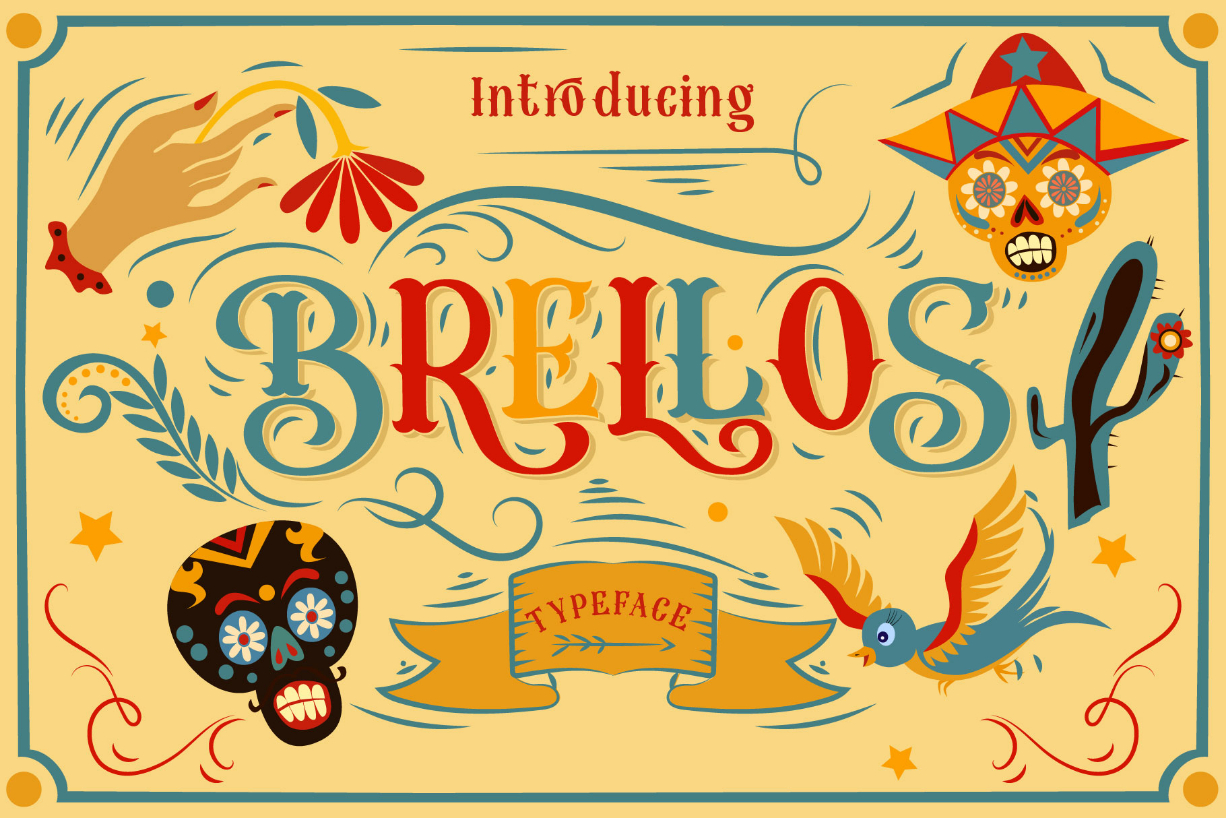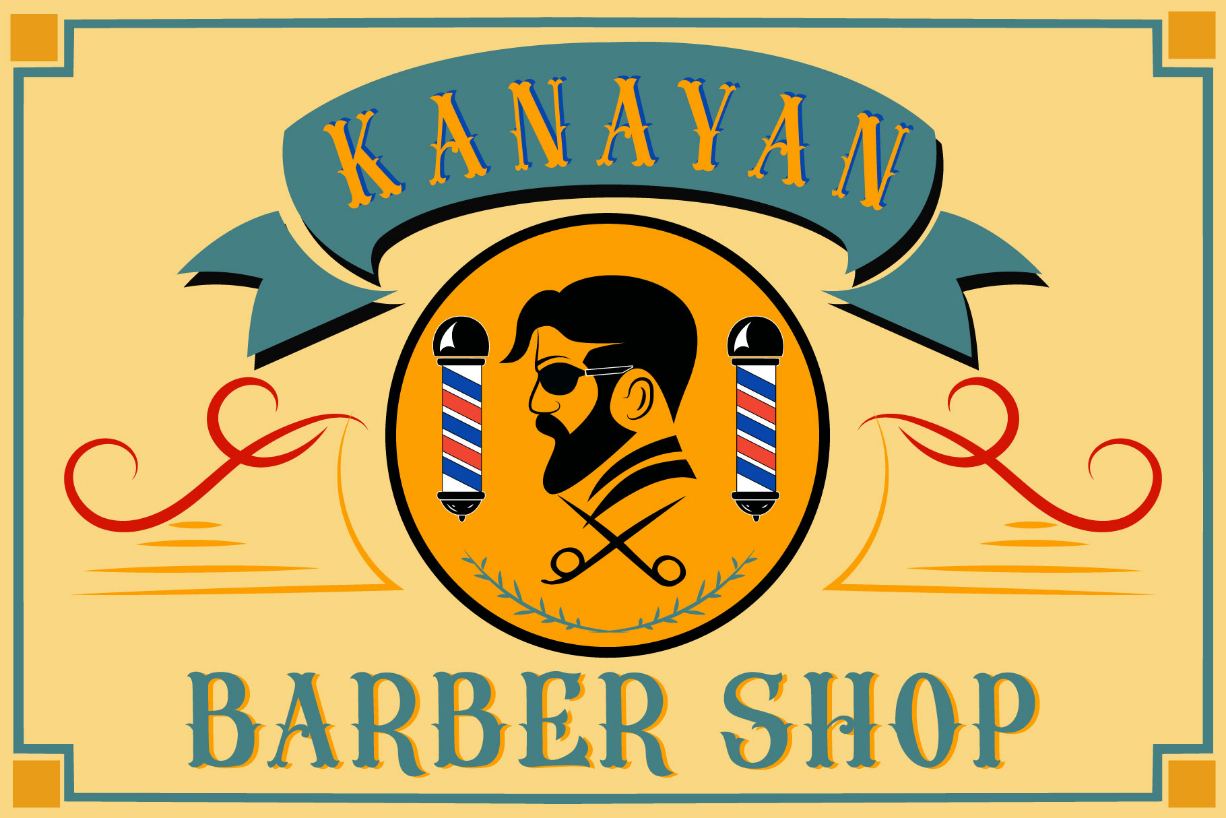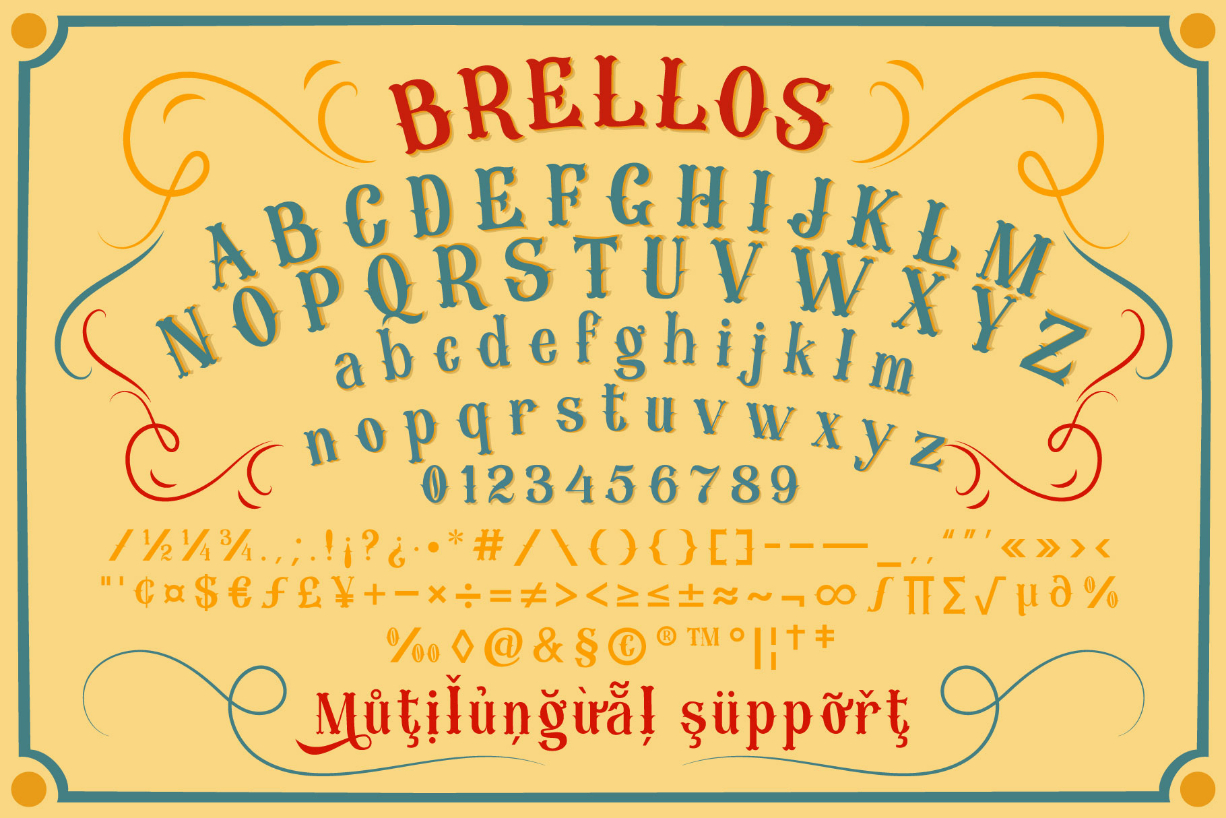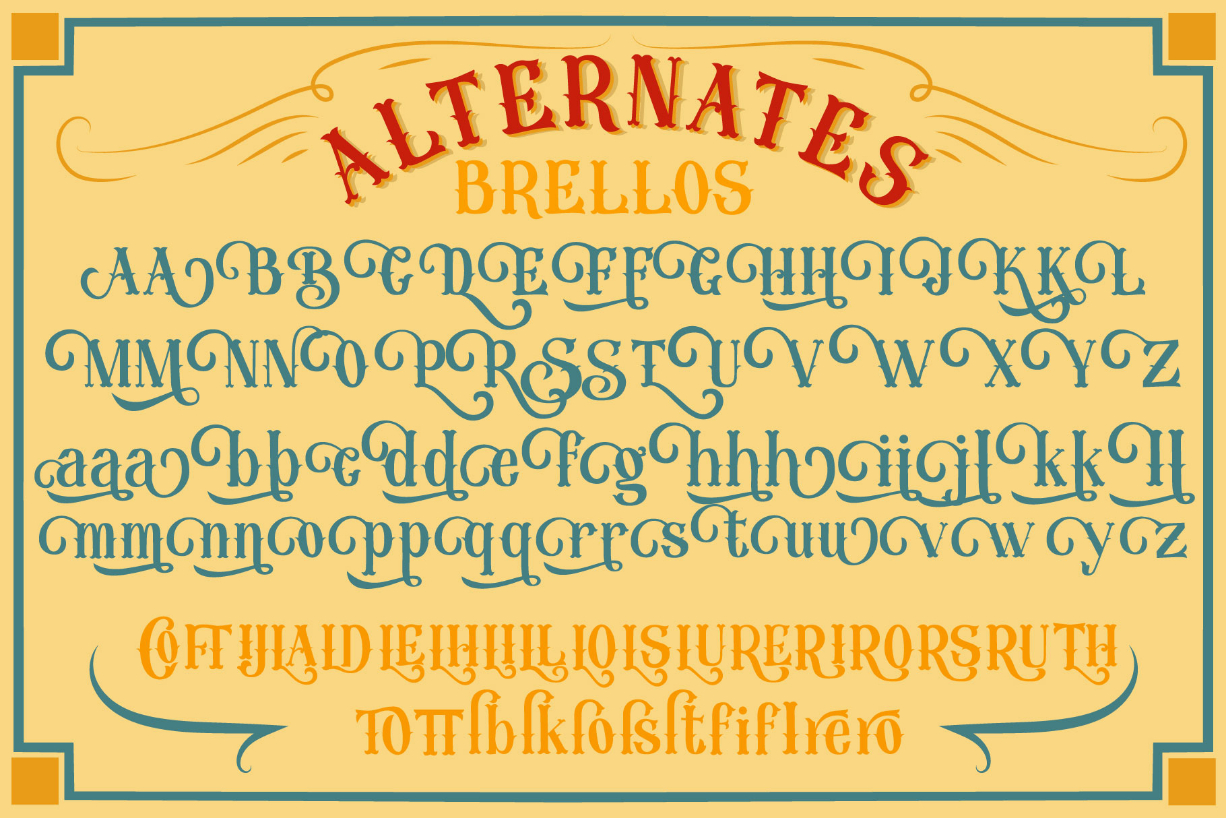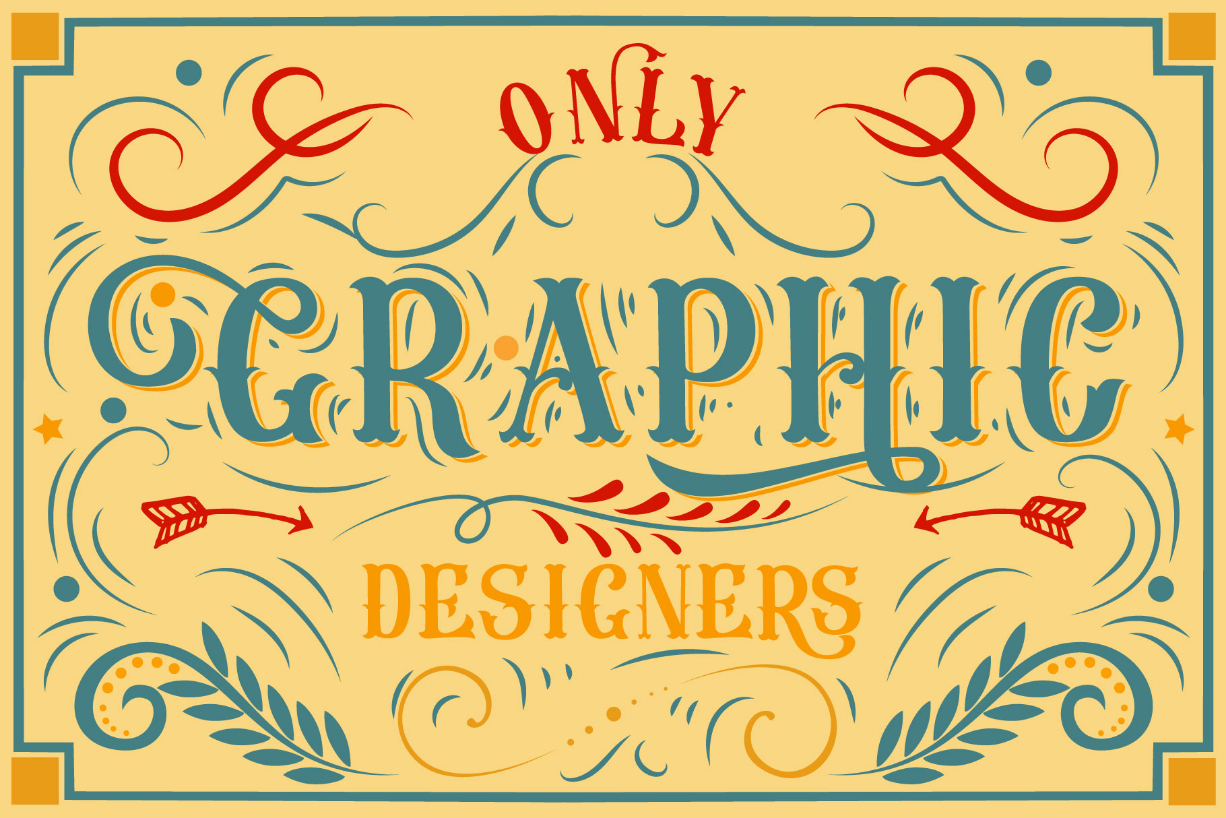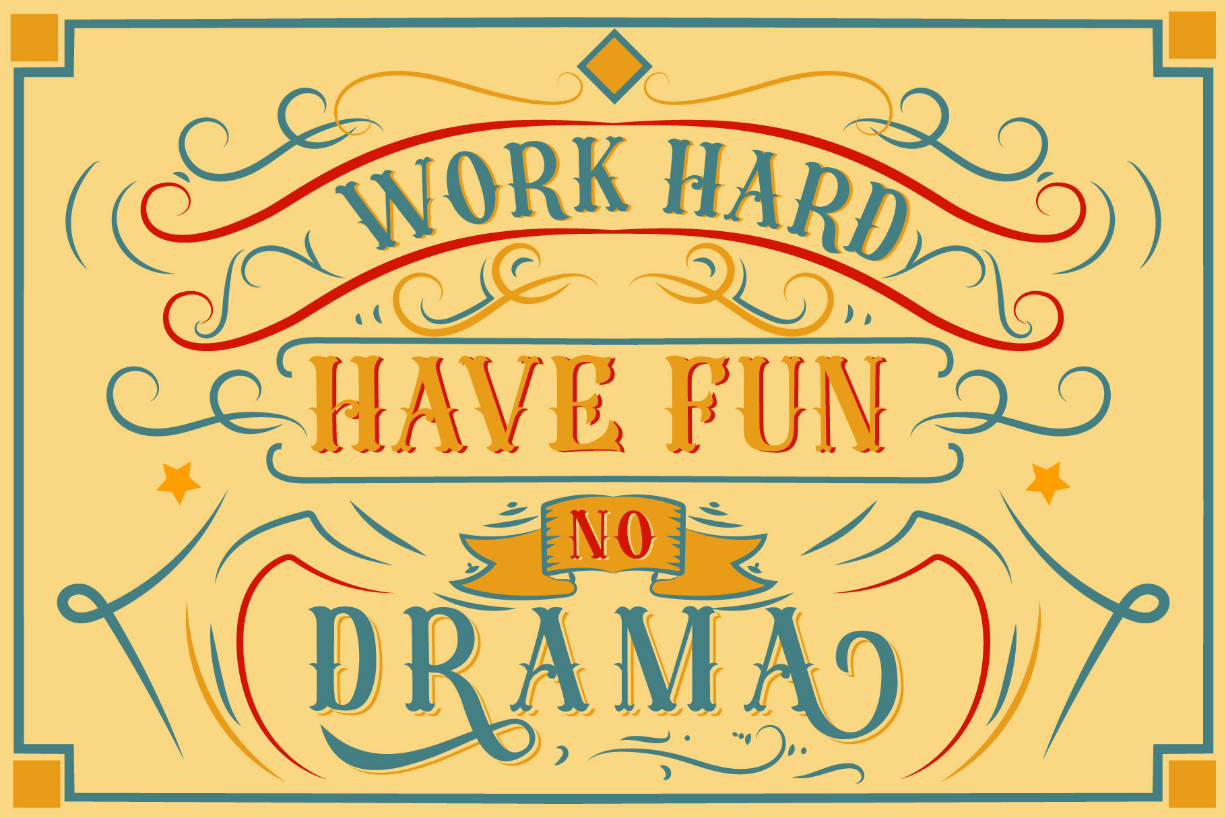
About Brellos Font
Brellos is a fun blackletter font. This font is the ideal font for adding an adventurous and authentic feel to your next design idea!